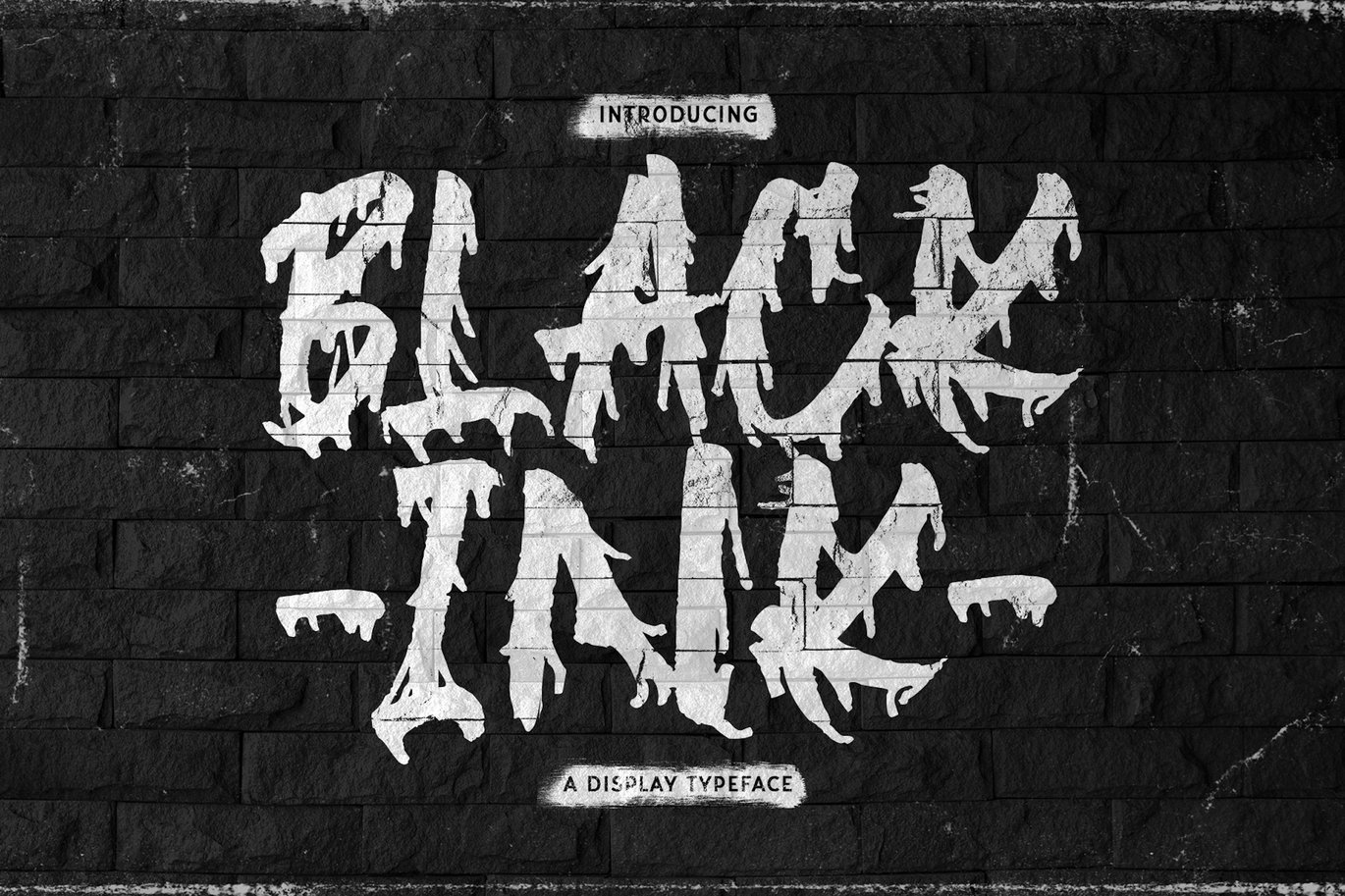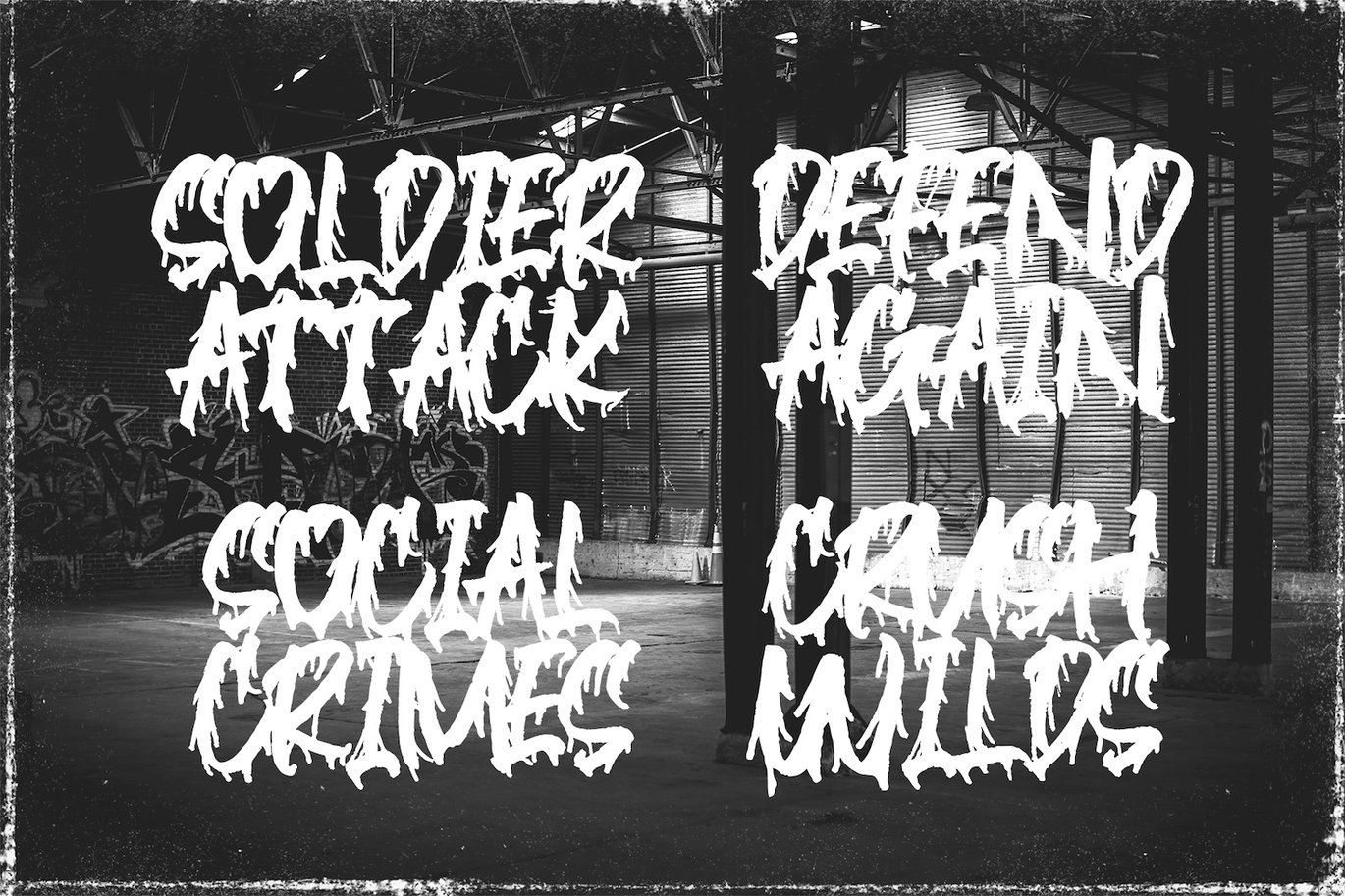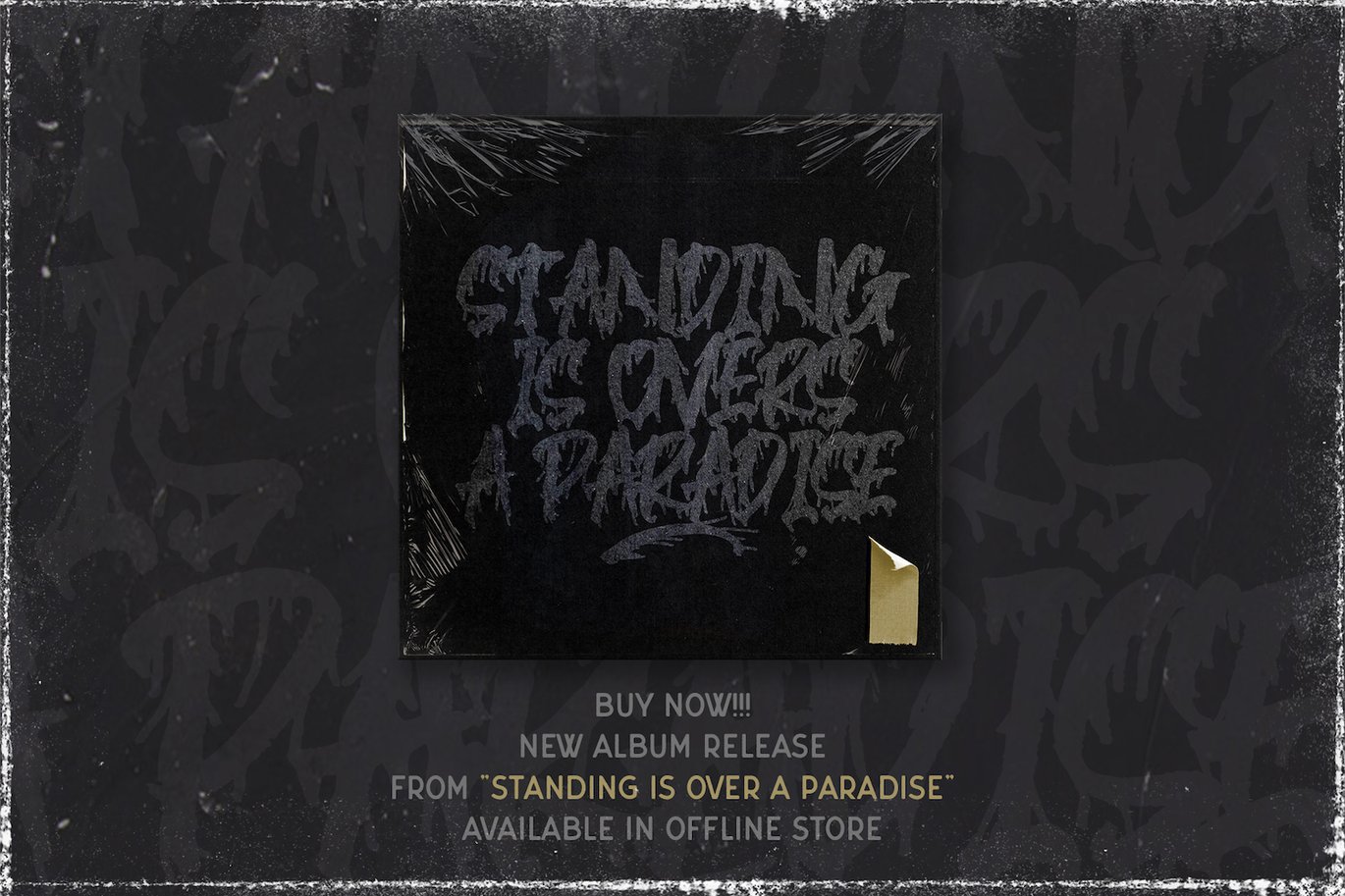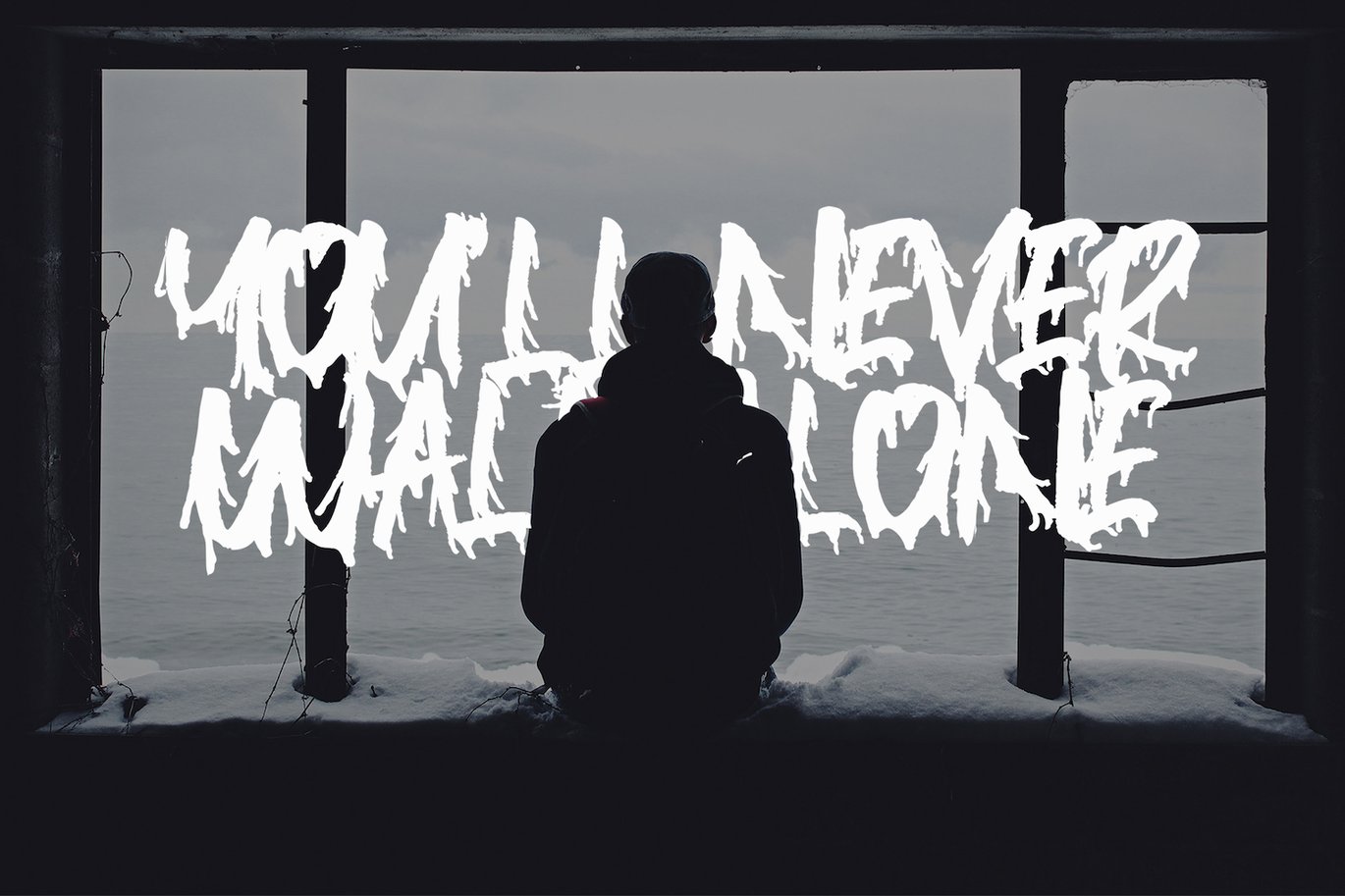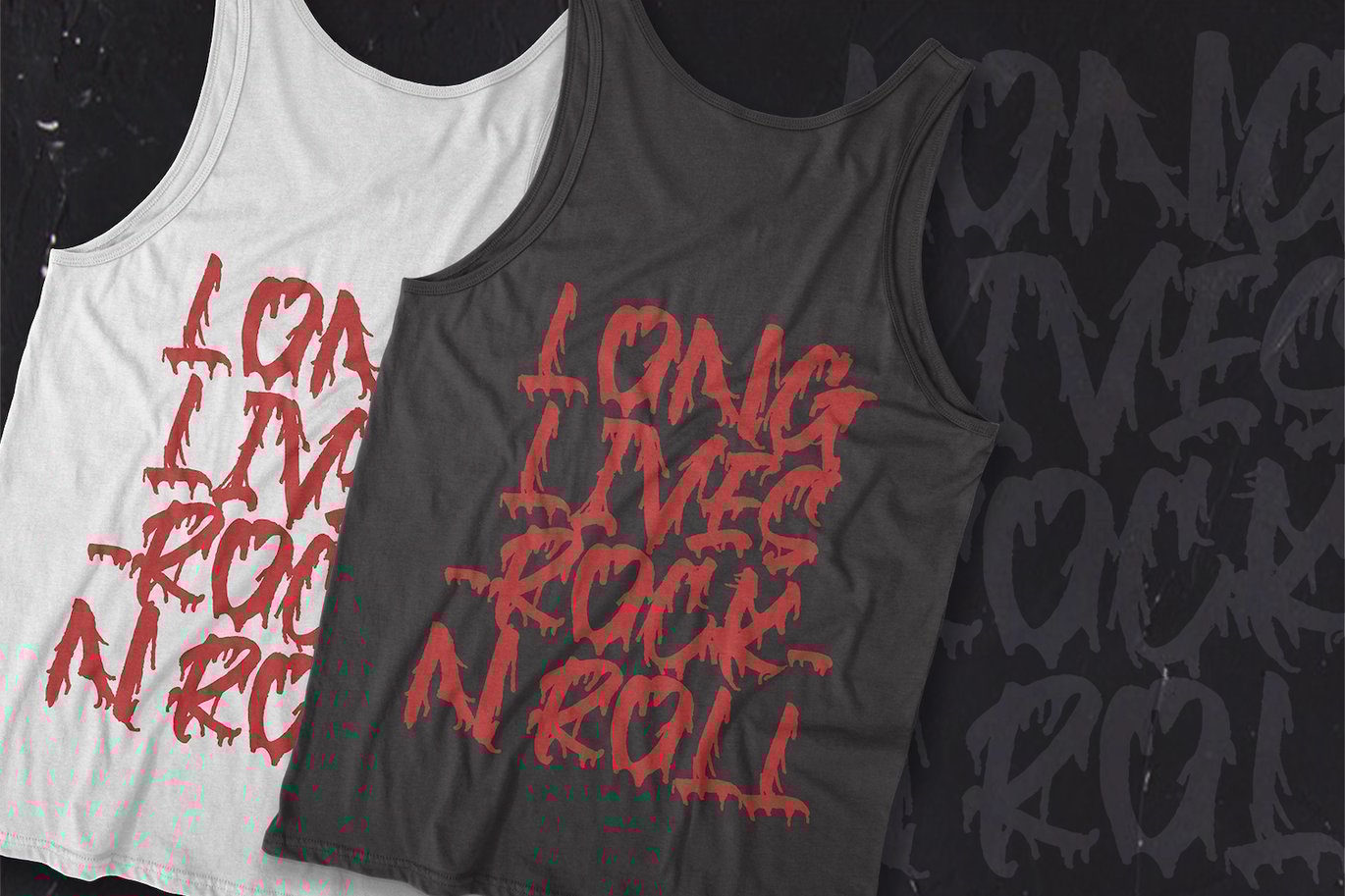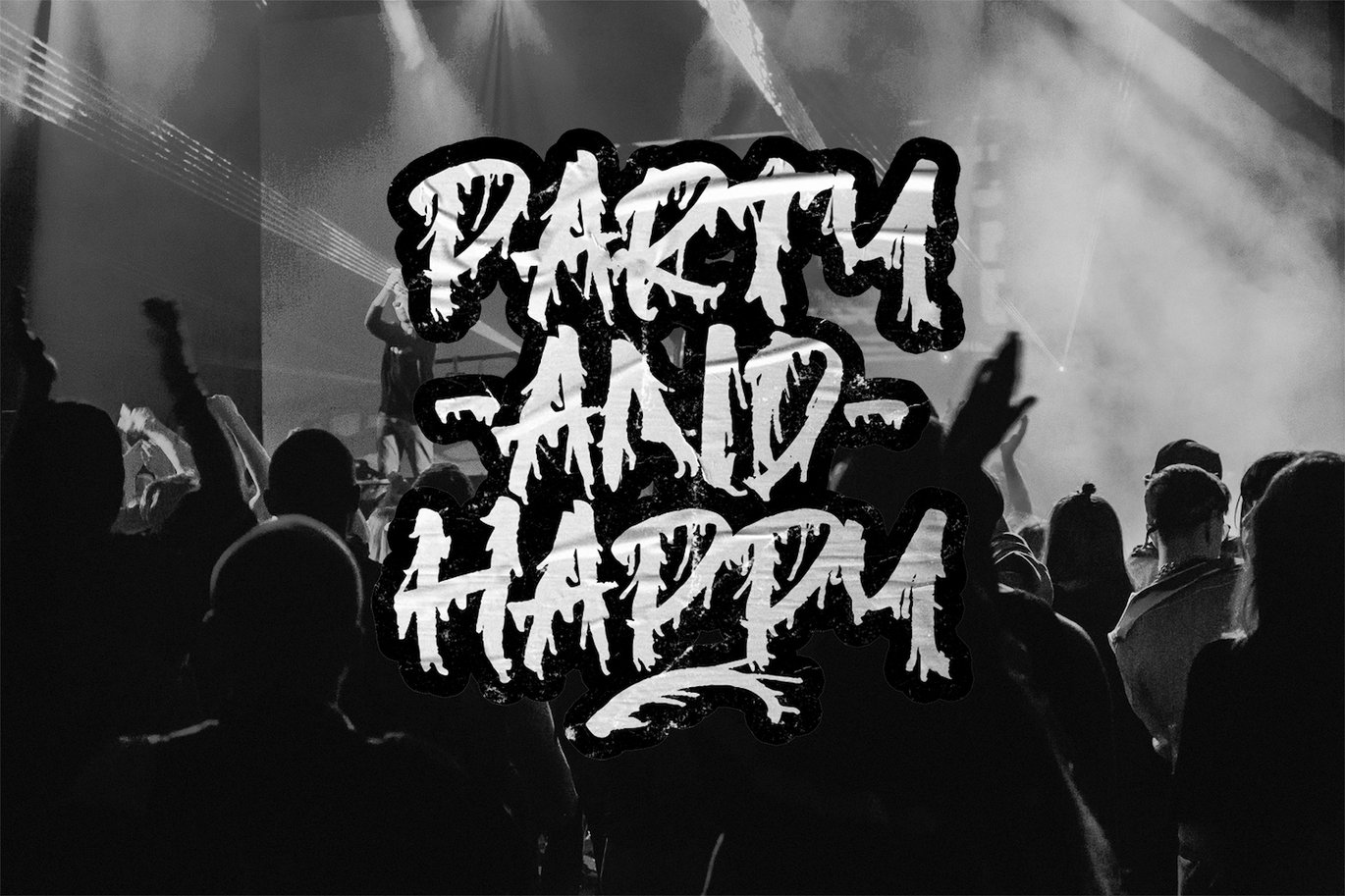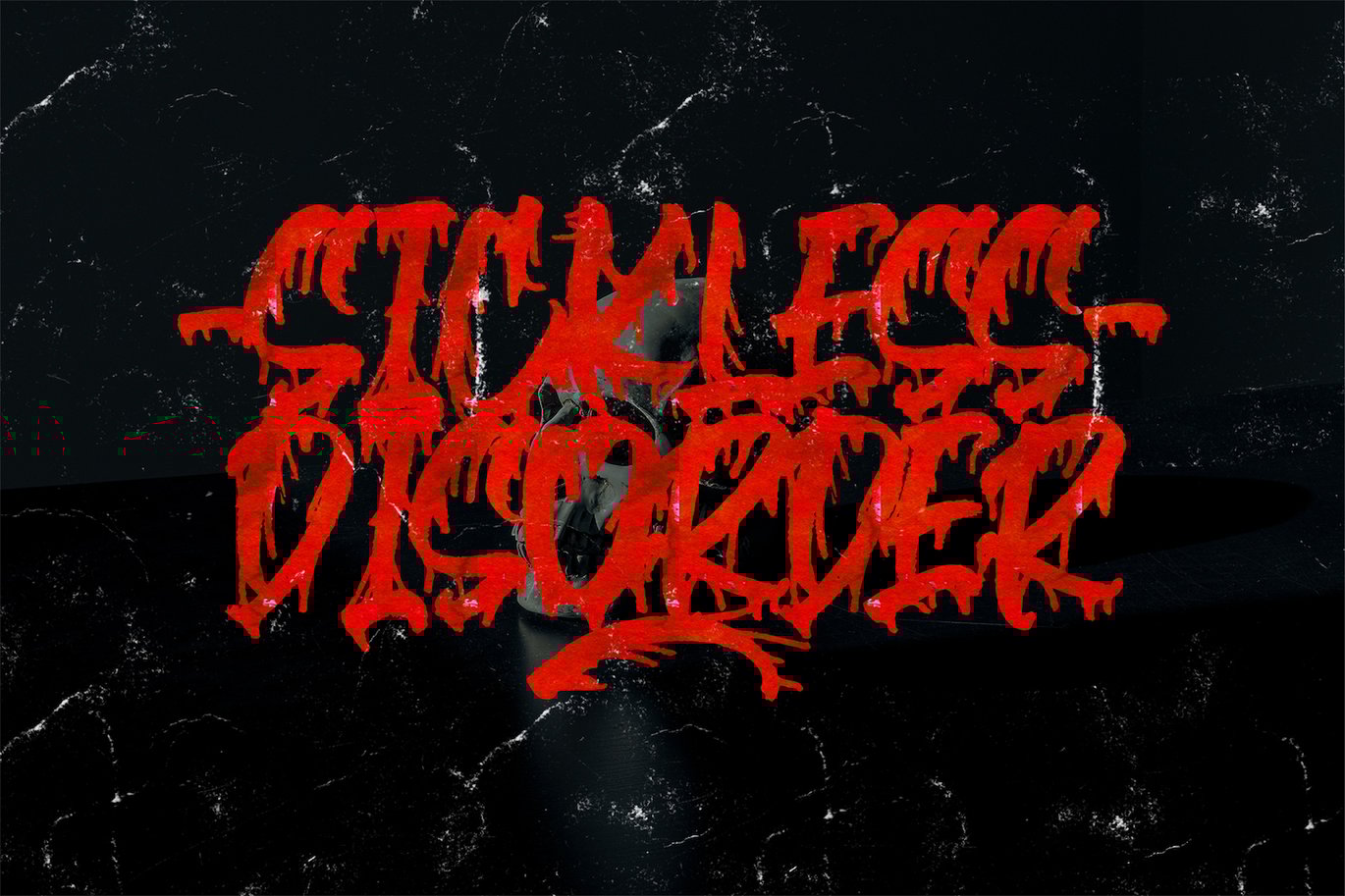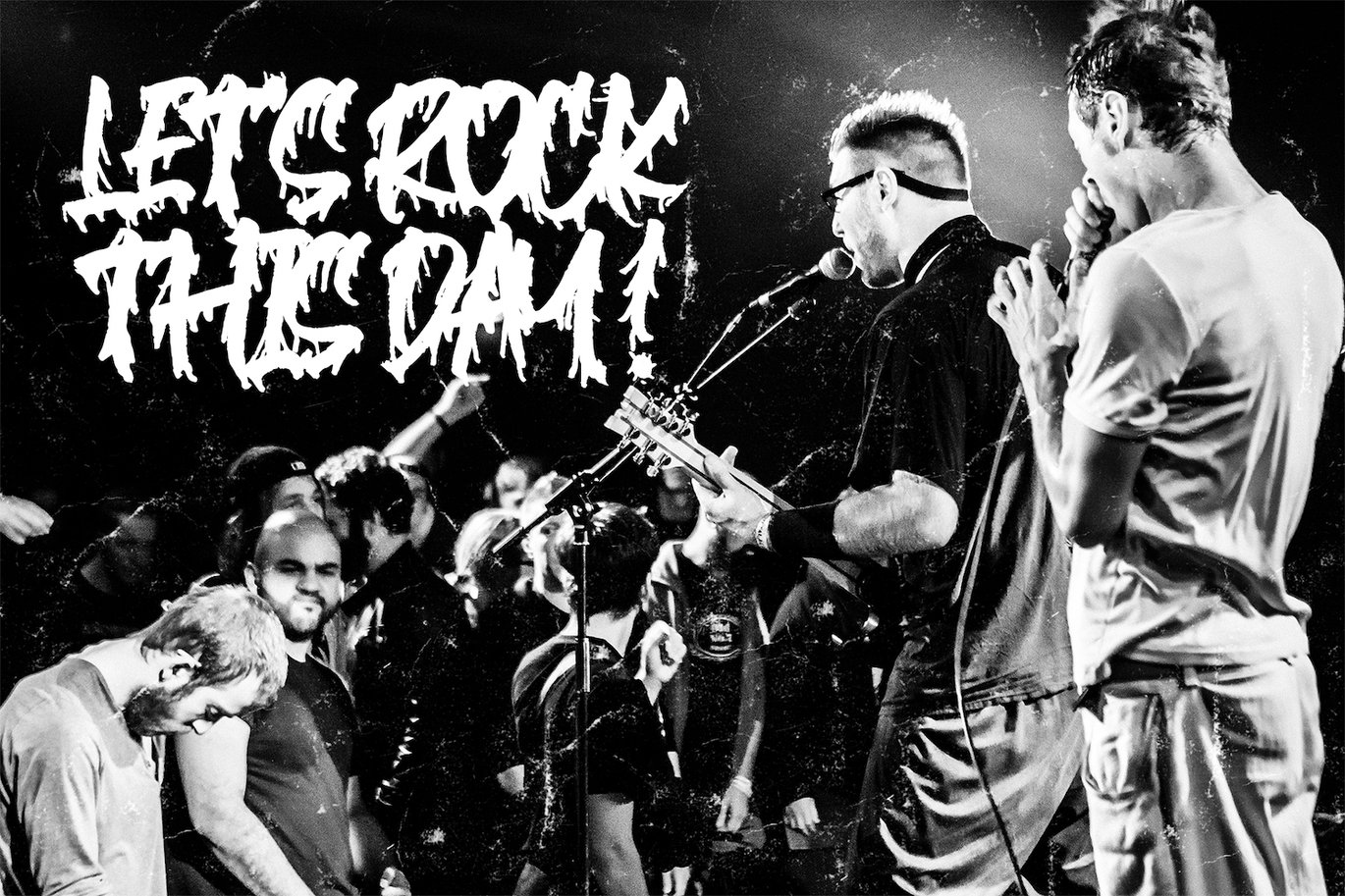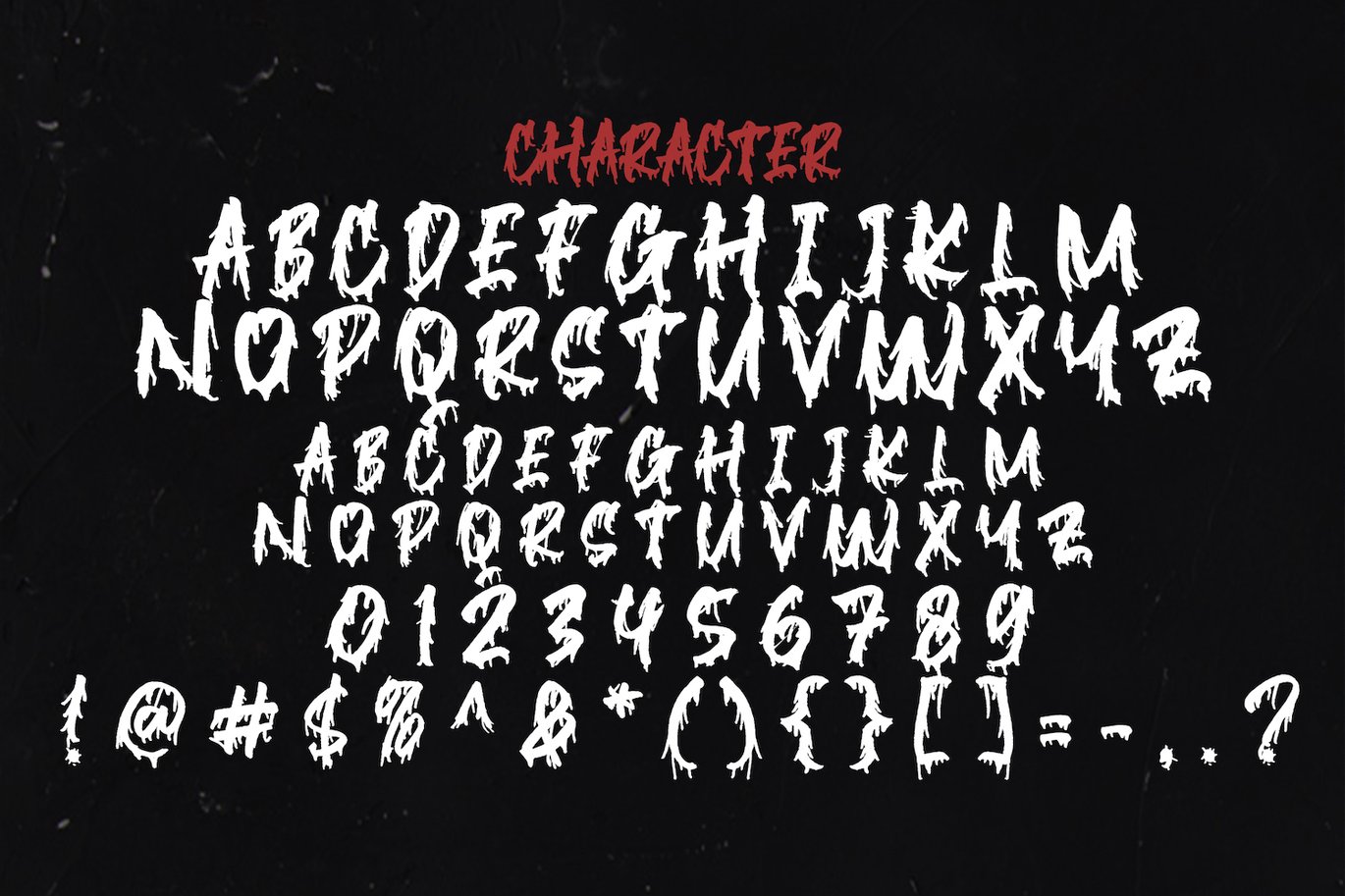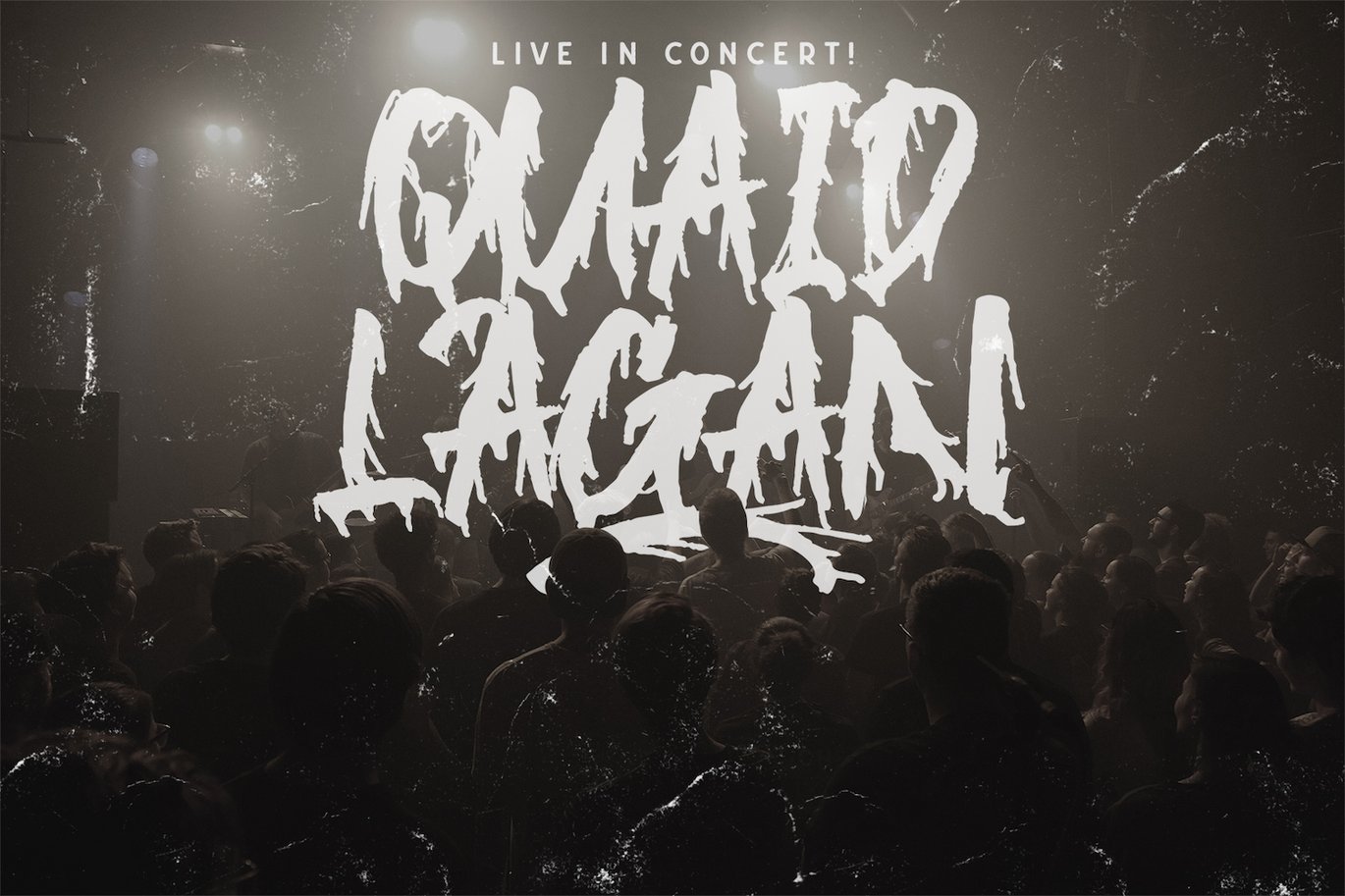
Blackink – Street Brush Display Font
Introducing Blackink – Street Brush Display Font
Blackink is an amazing hand brush display font that has an authentic splash brush feel. Use it for all your spooky crafting projects, such as Halloween cards, horror movie posters and much more! Blackink is a unique and incredibly interesting dingbats font. Add it to your creative ideas and notice how it makes them stand out!